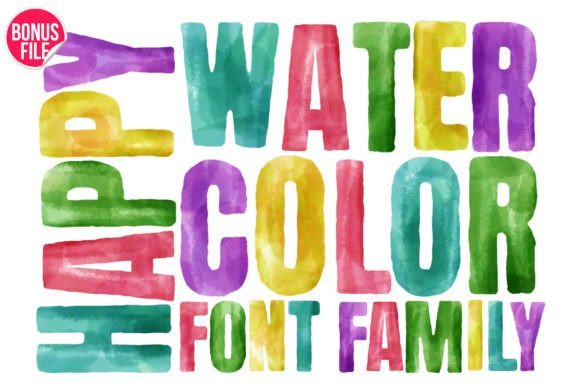
Unlock the Whimsy of Your Designs with Happy Watercolor Font
Have you ever felt the rush of excitement when you’re working on a creative project, and the perfect font suddenly comes to mind? It’s that moment when everything falls into place, and your design starts to take shape. For designers, finding the right font can be the difference between a good design and a great one. That’s where the Happy Watercolor Font comes in – a charming, hand-painted font that adds a touch of warmth and personality to any project.
Whether you’re creating invitations, branding materials, or simply want to add a creative twist to your quotes, the Happy Watercolor Font is the perfect companion. Its whimsical touch will transport your designs to a world of artistry and imagination, making it a valuable asset for any designer looking to stand out from the crowd. With its compatibility with popular design software, you can let your creativity flow and bring your ideas to life with the Happy Watercolor Font.
Key Features of Happy Watercolor Font
- Unique Characteristics: Happy Watercolor Font features a watercolor-inspired design with subtle texture and organic feel, perfect for creating a whimsical and artistic look.
- Script and Font Styles: This font includes a variety of script and font styles, including uppercase, lowercase, and special characters, to cater to diverse design needs.
Designer Review: Happy Watercolor Font
Happy Watercolor Font is a delightful and whimsical font that instantly captures the playful essence of watercolor art. ✨ The subtle texture and soft color transitions create a beautiful, hand-painted feel that’s perfect for designs that require a touch of warmth and personality. ✨ I particularly love how the font’s imperfections add character to text, making it feel more authentic and less cookie-cutter.
One of the font’s strengths is its versatility – it works beautifully for titles, headings, and even body text. The font’s watercolor effect can be toned down or amplified depending on the design requirements, making it a great choice for a wide range of projects.
- Unique watercolor texture and color effect
- Highly versatile and suitable for various design projects
- Beautiful, hand-painted feel
- May not be suitable for formal or professional designs
- Text readability can be affected by the watercolor effect
- Some characters may appear slightly distorted
Overall, Happy Watercolor Font is a fantastic choice for designers who want to add a playful, artistic touch to their designs. While it may have some limitations, its unique charm and versatility make it a great addition to any font collection.
Happy Watercolor Font is ideal for creating whimsical and playful designs, such as:
– Children’s books and educational materials
– Social media graphics and ads
– Artistic quotes and phrases
Some tips to get the most out of the font include:
– Experiment with different font sizes and styles to create visual interest
– Pair the font with other watercolor or hand-drawn elements for a cohesive look
– Use the font to add a touch of whimsy and personality to your designs